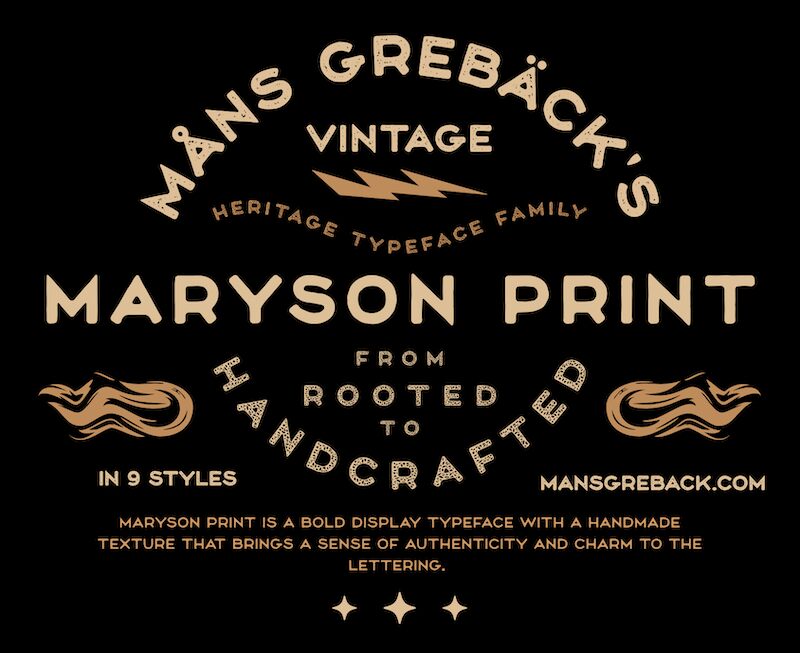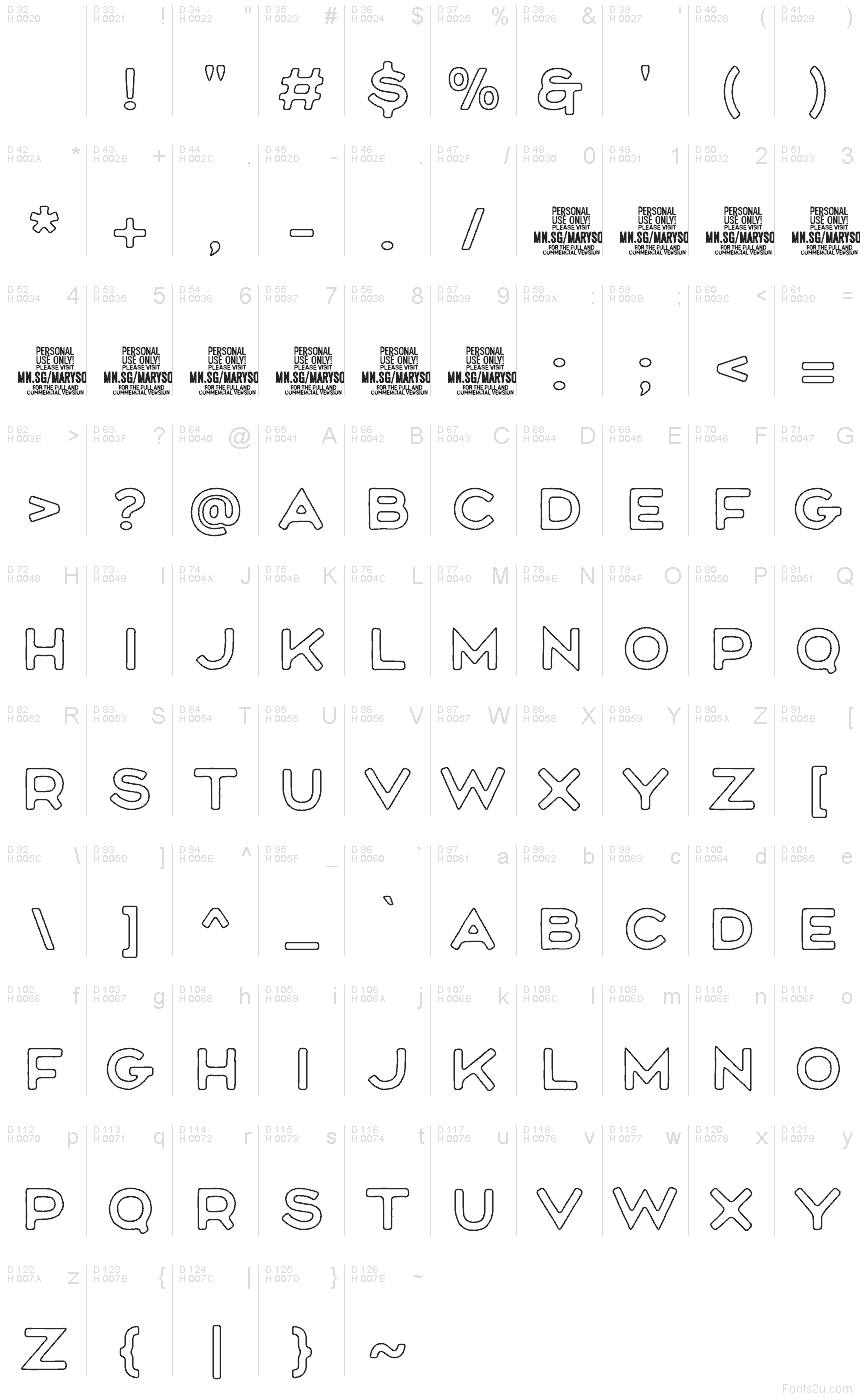
Maryson Outline PERSONAL USE Regular
Maryson Outline font by Mans Greback is a free retro outline display typeface that turns any short word or phrase into a bold graphic element. Its rounded, monoline letters feel like neon tubing or hand-bent wire, with clean curves and sharp diagonals that stay legible even at a distance. The airy interior of each character invites color, texture, or imagery behind it, so your typography feels more like signage than simple text.
Using Maryson Outline, headlines instantly get that punchy, signboard energy that works beautifully for posters, logos, storefronts, packaging, event titles, and social media graphics. This free font really shines when you give it room to breathe at large sizes and keep supporting text in a simple sans serif, letting Maryson carry the personality. Try setting short phrases in all caps with generous letterspacing to emphasize its smooth, tubular rhythm.